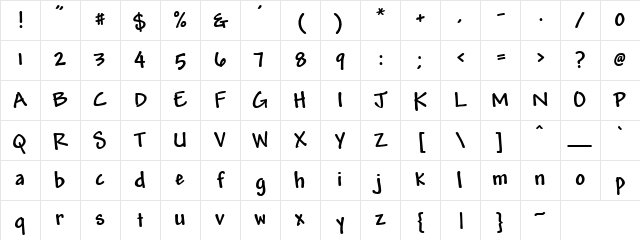
Andy Bold Free Font
Andy Bold
Foundry: Monotype Typography
Designer: Steve Matteson
Design Context for Andy
Andy is a composed and adaptable typeface that performs quietly and consistently across a wide range of design contexts. Its bold stroke weight gives it real presence on the page.